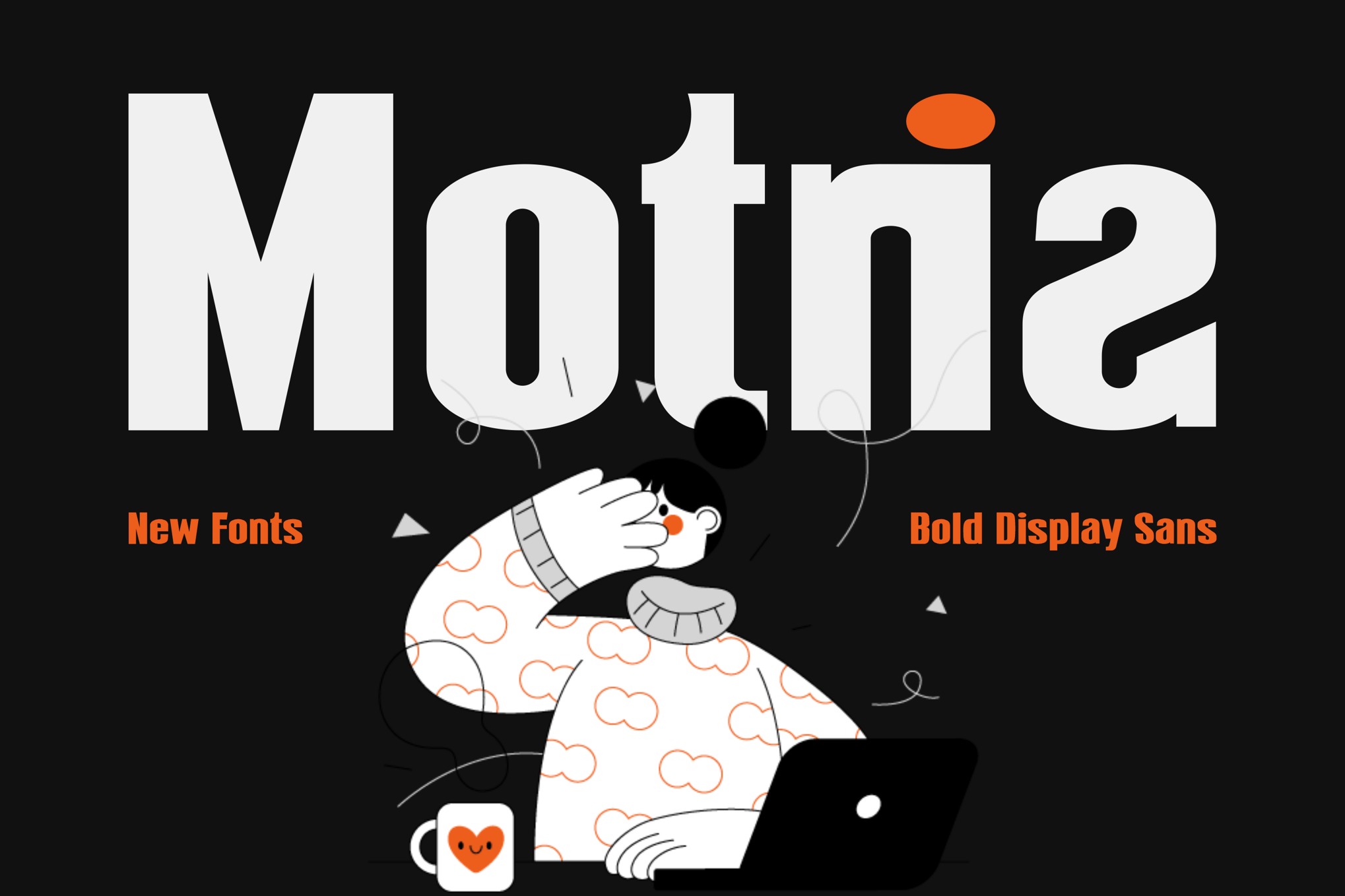
Motria – Bold Sans Serif Font
Motria – Bold Sans Serif Font is a stylish typeface that enhances visual appeal and works effortlessly in many design contexts. Motria is a super thick typeface with more traditional letter shapes, making it perfect for creating (or recreating) the concise look of film poster production credits.